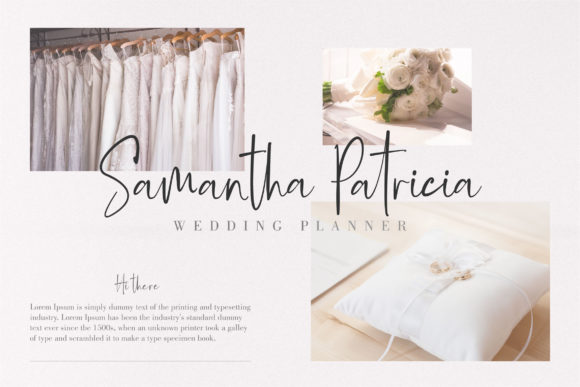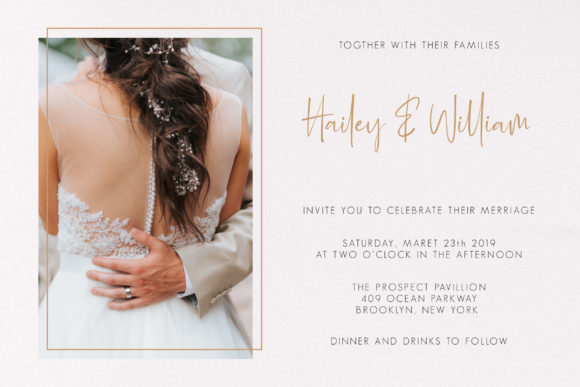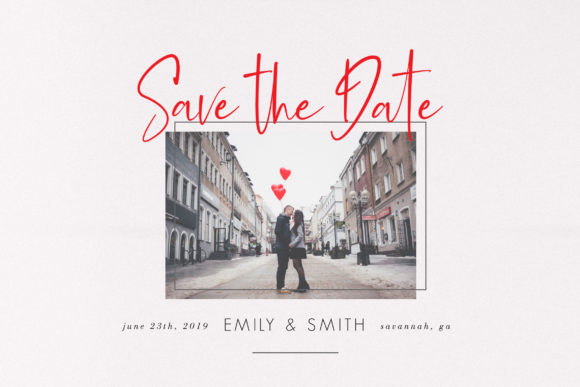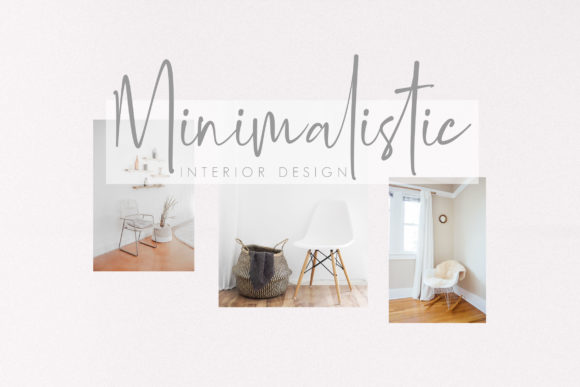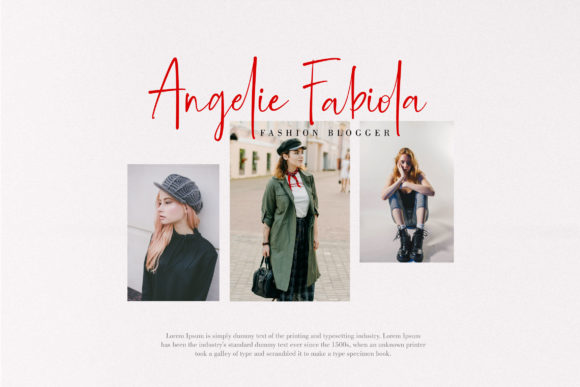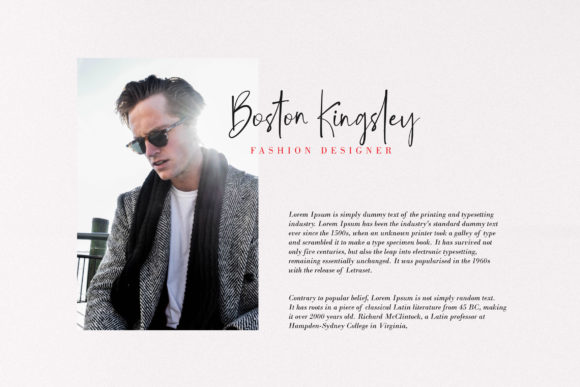
Introduction to Maveline Font
The Maveli is a messy, feminine, carefree script that is perfect for logos, posters, signage, and more.
It includes amazing ligatures for a totally unique hand-written feel .